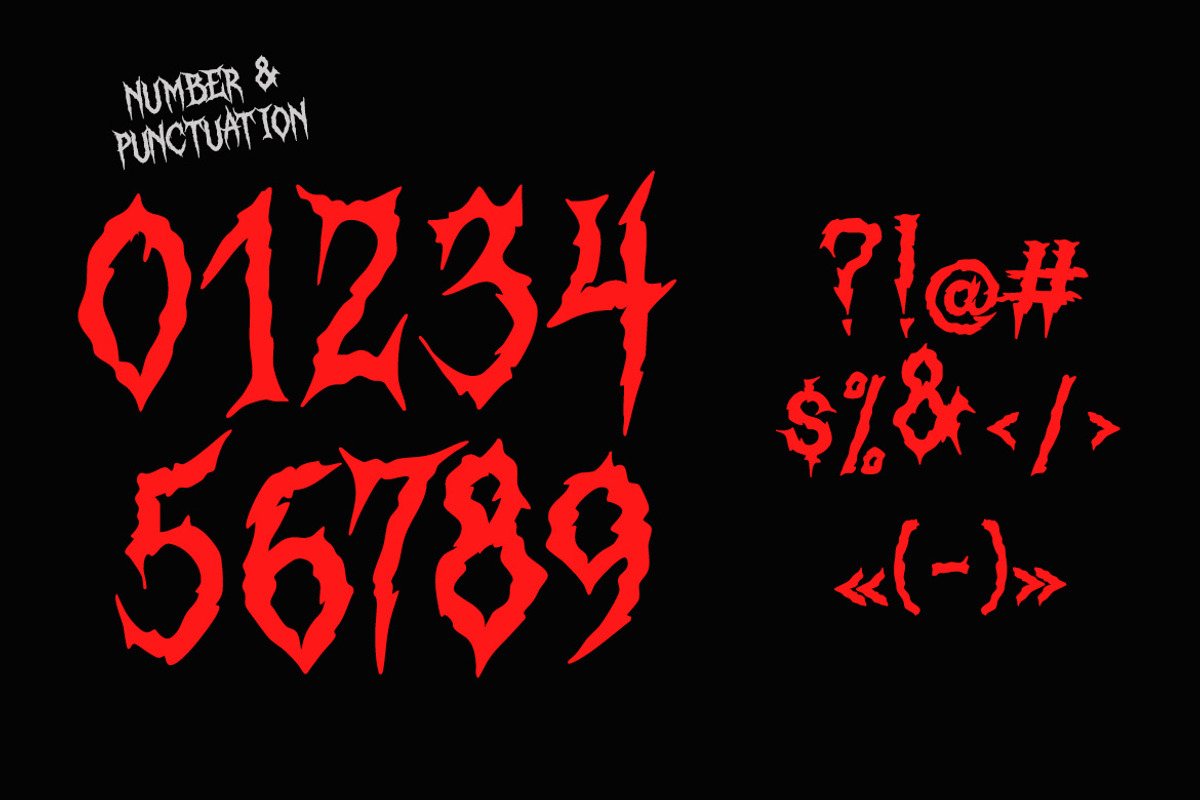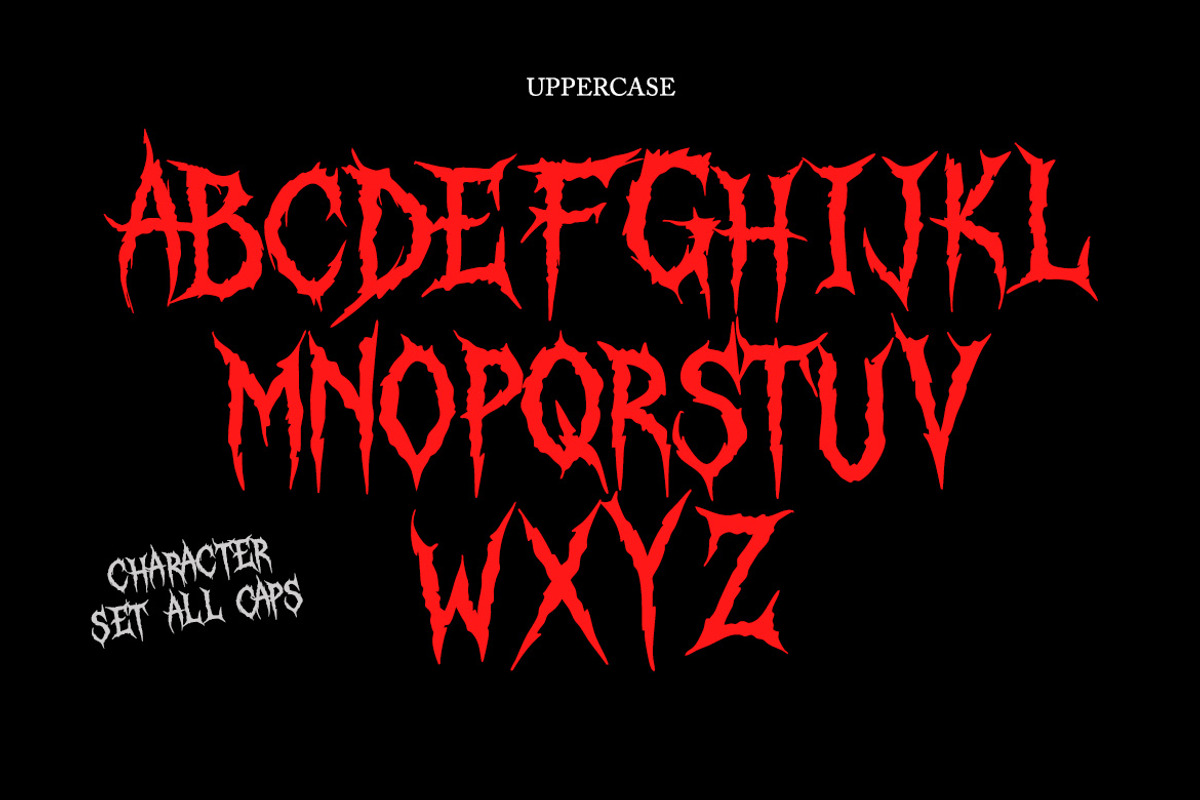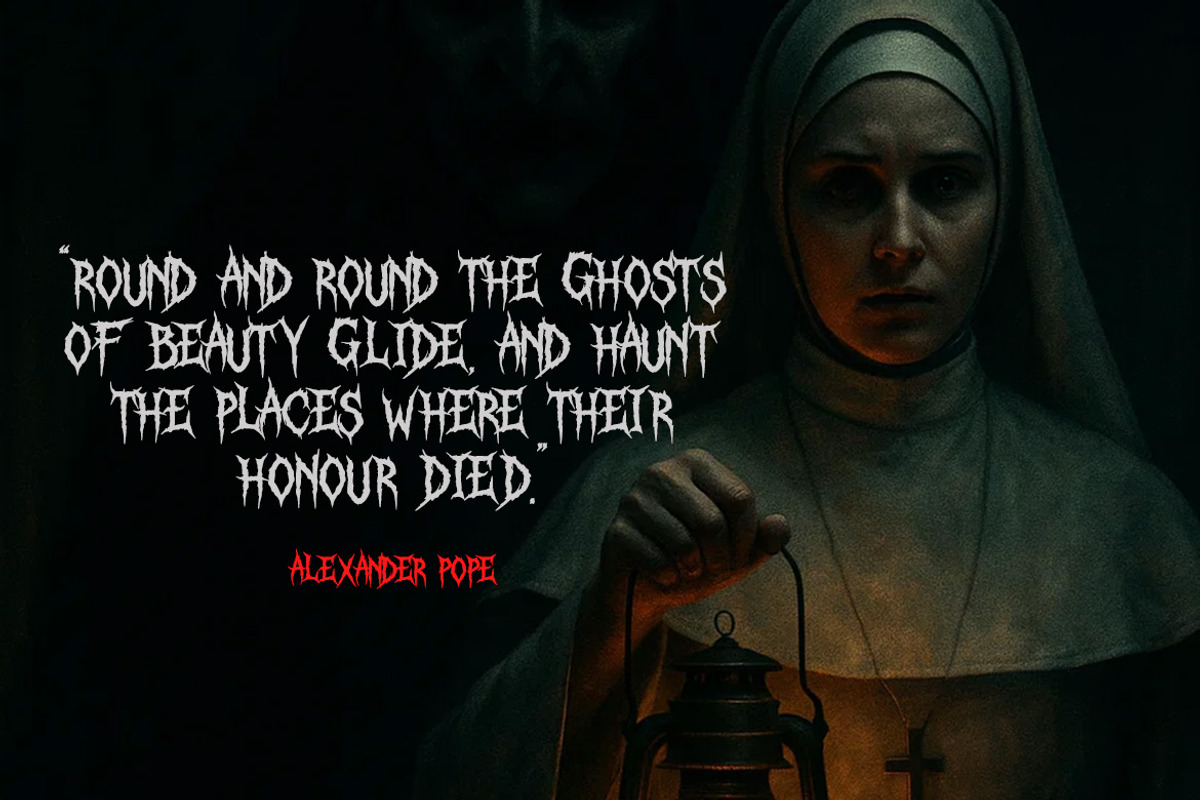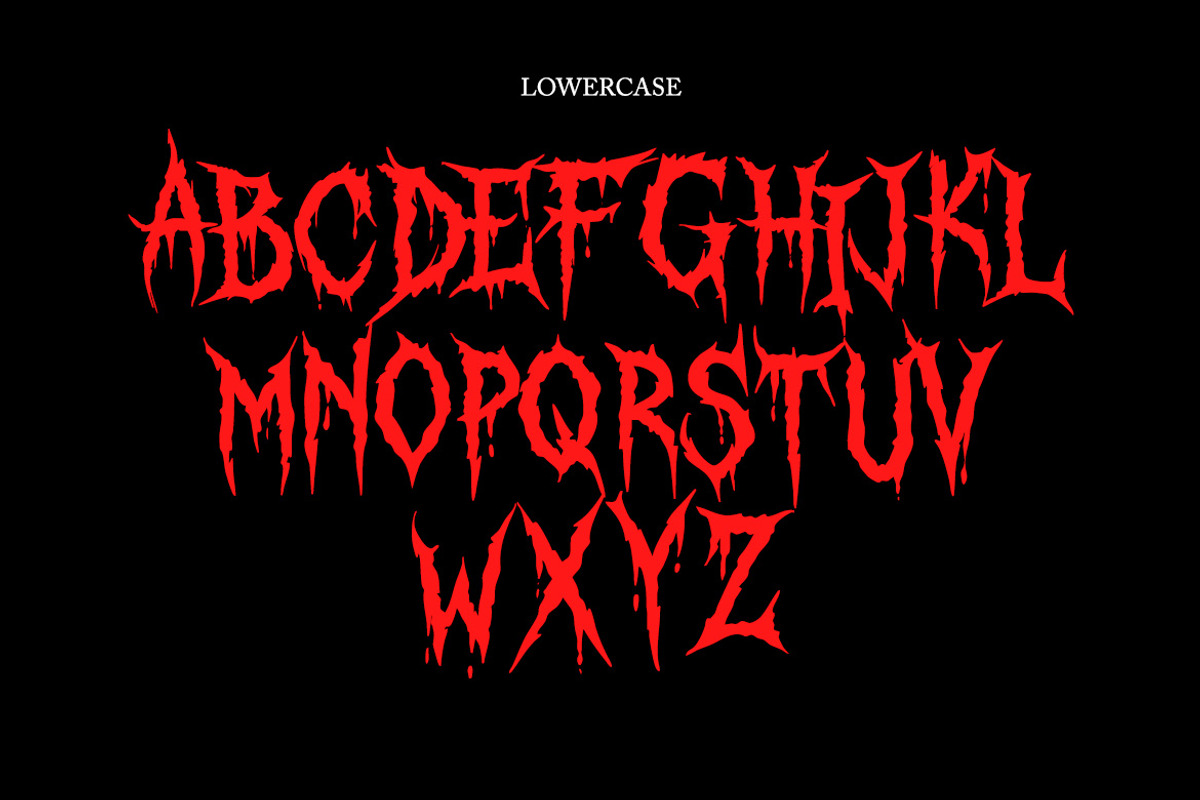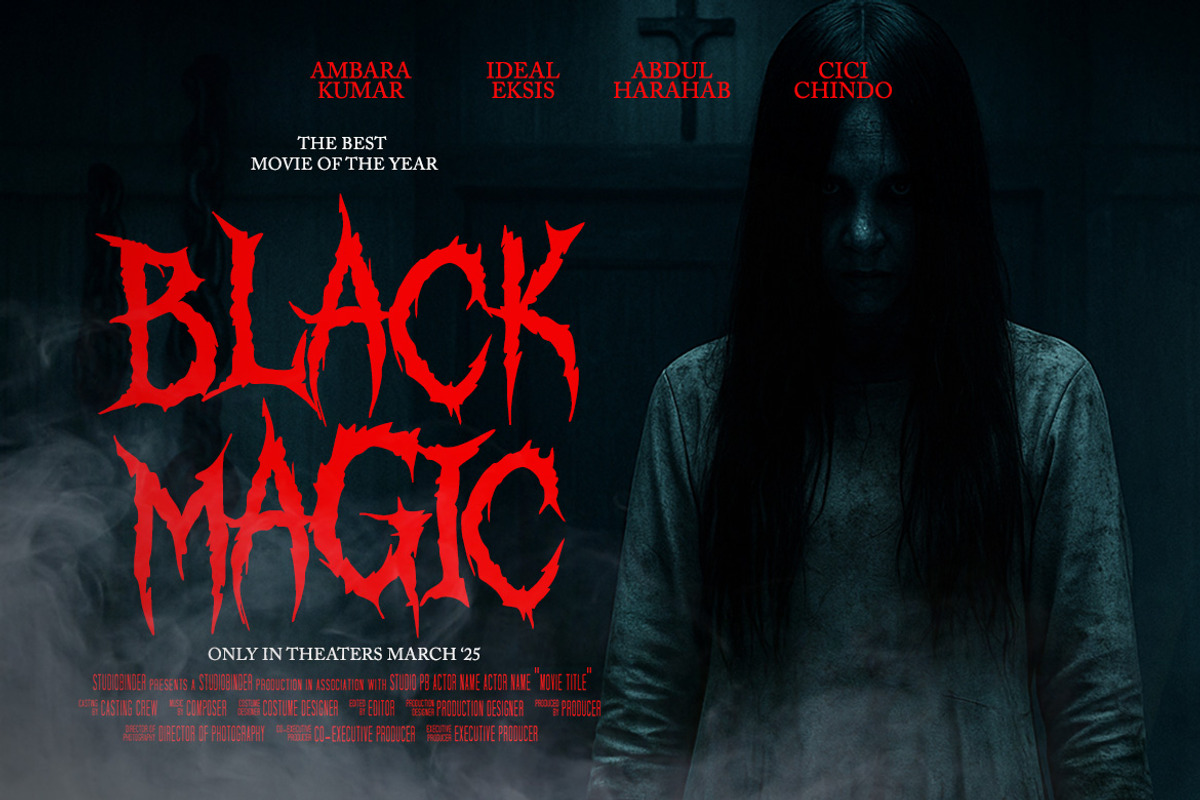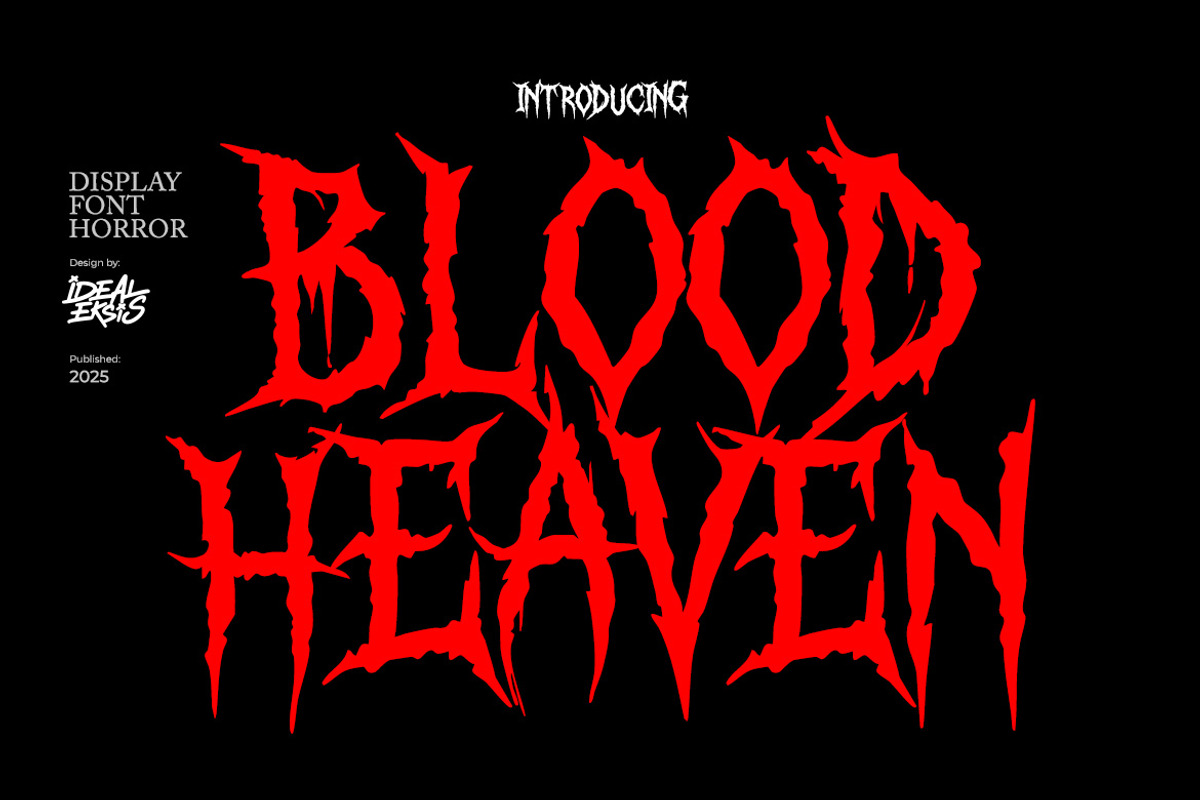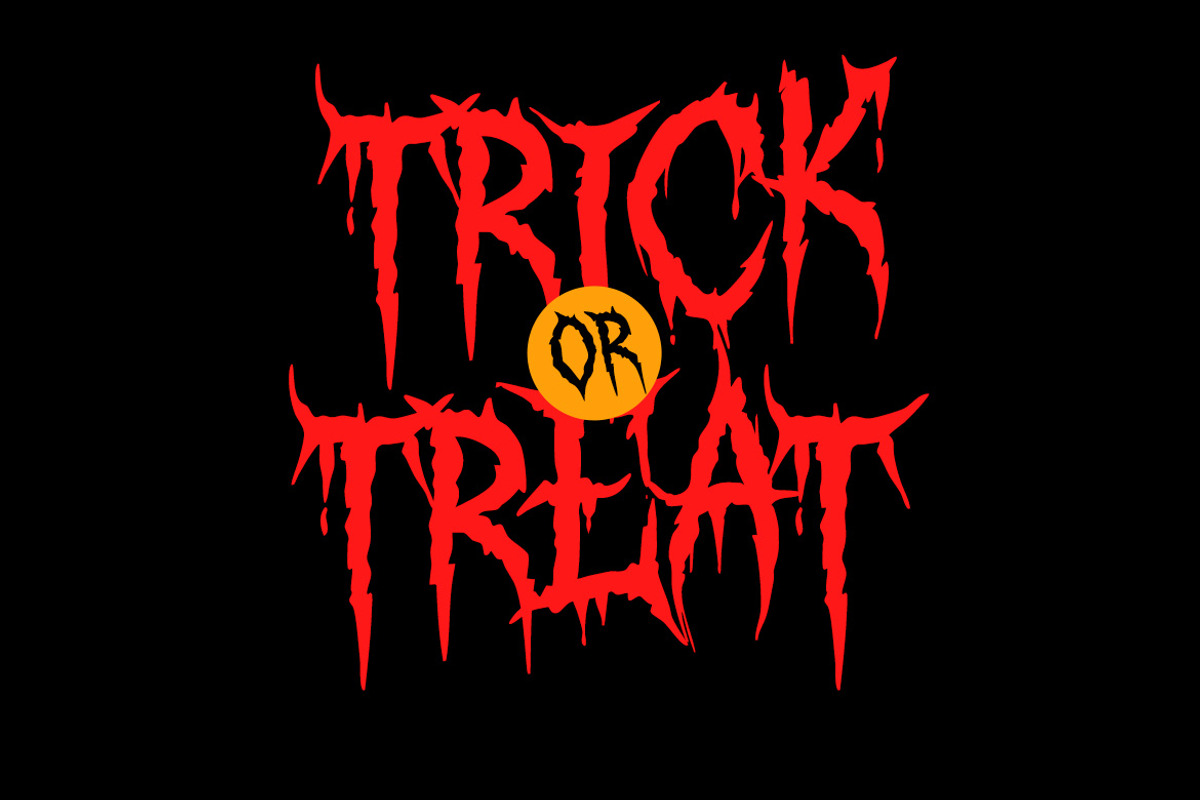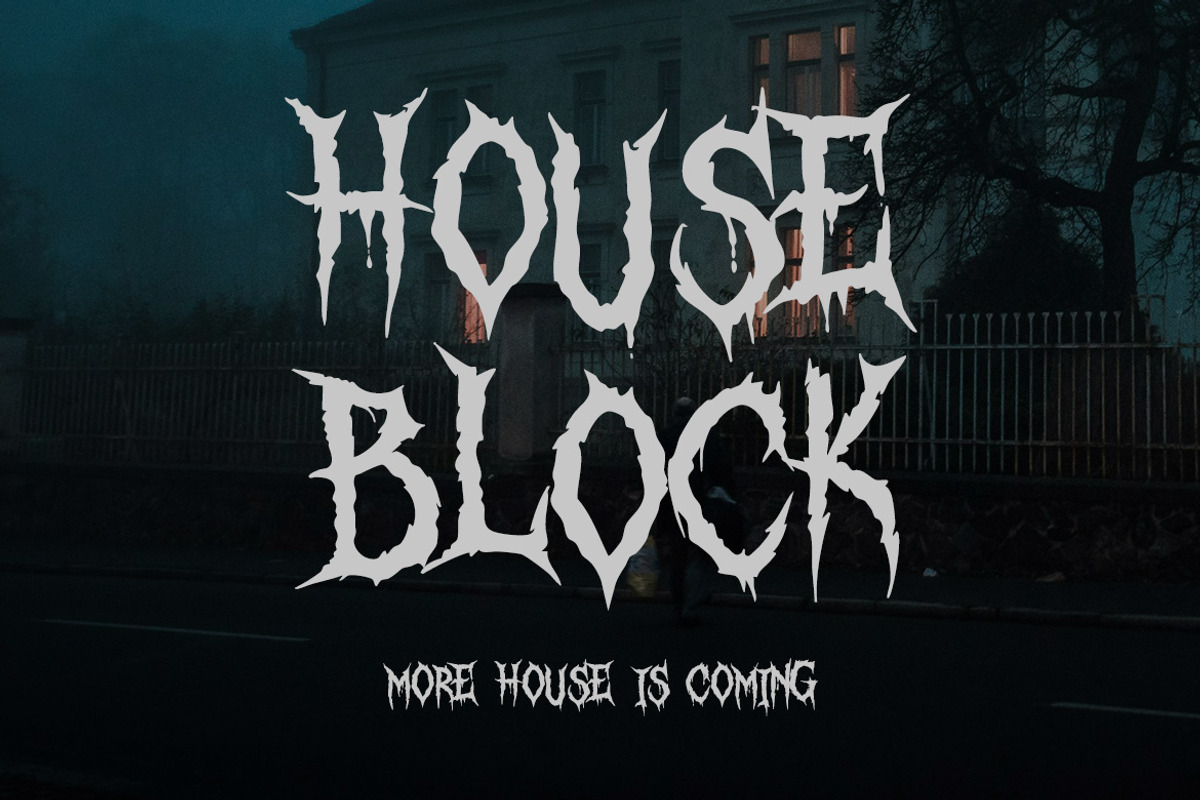
Blood Heaven - Horror Font
Blood Heaven is a sharp horror display font with jagged edges and a sinister style. Inspired by classic horror movie titles, it brings an intense and terrifying atmosphere—perfect for posters, Halloween projects, dark branding, metal band logos, and any design that needs a chilling impact.